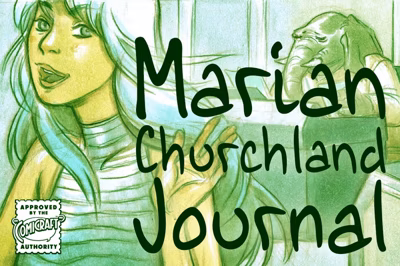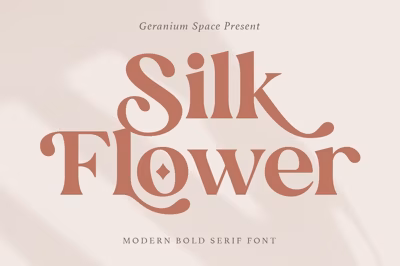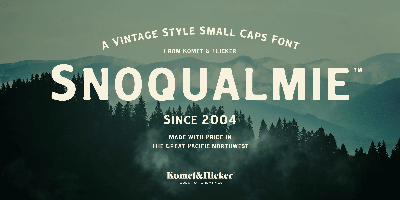
Modern Font Bundle Vol.2 Free Download is a curated collection of sleek, contemporary typefaces designed to elevate any modern design project. Featuring a diverse range of clean sans-serifs, elegant serifs, minimalist scripts, and bold display fonts, this bundle is perfect for branding, websites, packaging, social media, and editorial layouts.
Packed with high-quality fonts, Modern Font Bundle Vol.2 Free Download offers unmatched versatility and style. Whether you're creating a refined logo, a stylish Instagram post, or a professional presentation, these fonts give you the tools to build strong, cohesive visual identities.
Each typeface in this bundle is thoughtfully crafted to bring clarity, personality, and a modern edge to your typography. The variety ensures you’ll always have the perfect font for any mood—clean, bold, minimalist, or artistic.